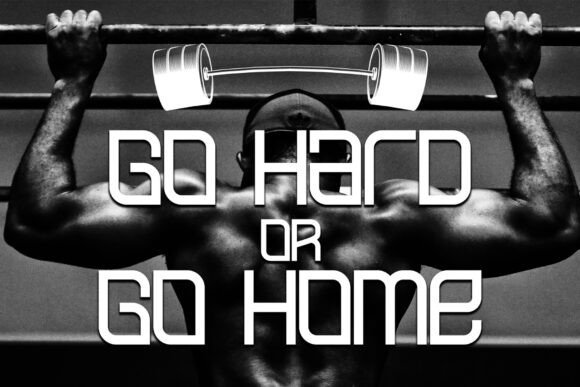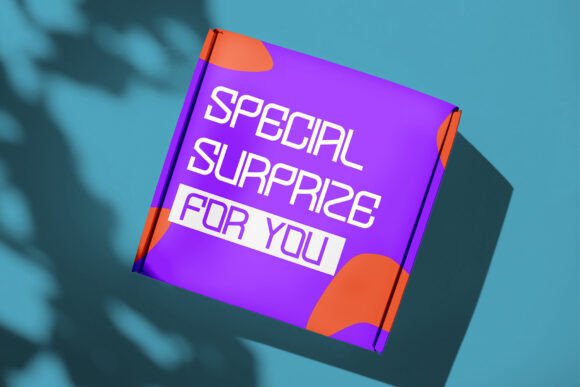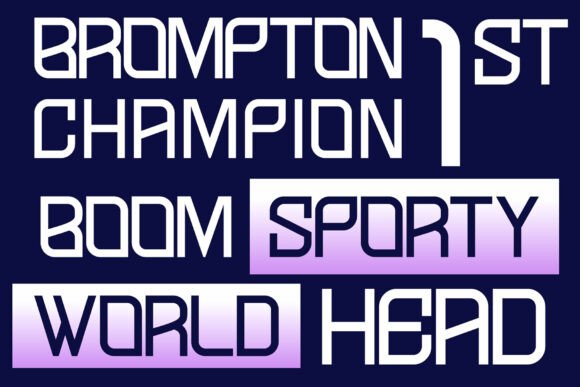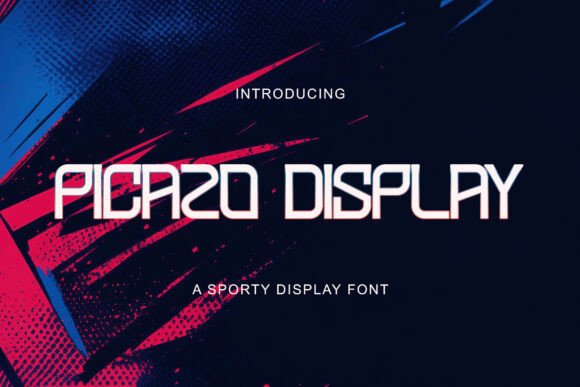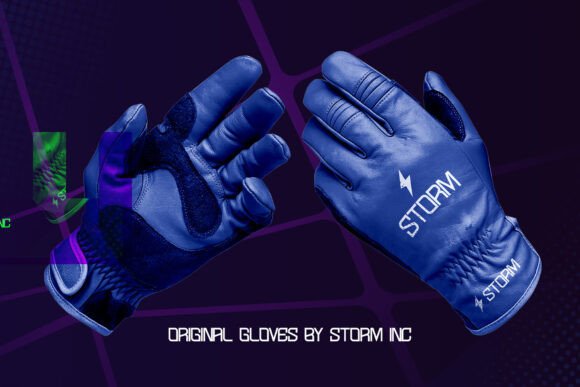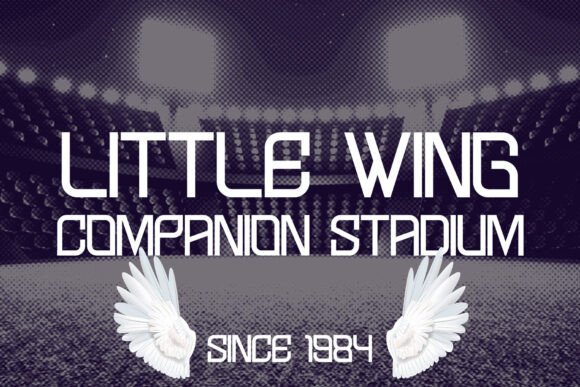
Introduction to Picazo Display Font
Picazo Display is a dynamic and futuristic font with sharp, sleek letterforms.
Designed for sports branding, tech-related projects, and energetic designs, this font delivers a bold, high-performance look .
Key Features of Picazo Display Font
Why Choose Picazo Display Font?